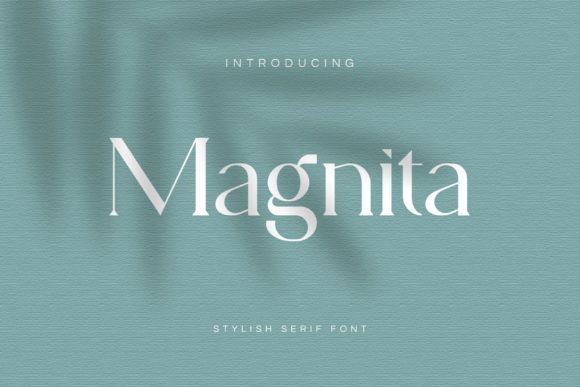
Step into the world of typography with Magnita, a masterpiece that dances on the canvas of your imagination. Its crisp strokes and alluring curves will ignite your designs with an unparalleled charm and sophistication.
Indulge in the elegance of serif fonts, where each letter is a testament to tradition and artistry. Magnita's timeless essence will elevate your creations, bestowing upon them an air of timeless sophistication.
Whether you're crafting a captivating brand identity, a breathtaking poster, or a memorable web design, Magnita's versatility will empower you to leave an unforgettable mark. Its edgy details add a touch of intrigue, inviting your audience to explore the depths of your artistic vision.
With Magnita, you gain access to a boundless realm of creative possibilities. Its clean and crisp structure ensures readability, while its bold character demands attention.